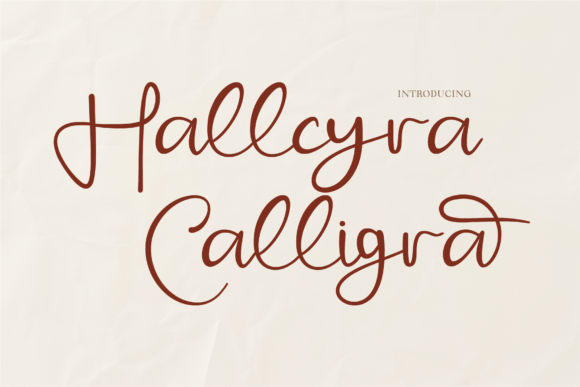
Unleashing the Art of Elegant Design: Hallcyra Calligra Font
Have you ever been in the midst of a creative project, struggling to find the perfect font to convey the essence of your vision? As you browse through endless options, one style catches your eye – a delicate, handwritten font that whispers elegance and sophistication. This is the moment when you discover the Hallcyra Calligra Font, a beauty that radiates timeless charm and artistic flair.
This exquisite font is designed to capture the essence of refined handwriting, making it perfect for a wide range of projects. Whether you’re crafting wedding invitations, personal stationery, or branding materials, the Hallcyra Calligra Font adds a touch of charm and individuality, elevating your creations with an air of grace and creativity. Its versatility allows it to seamlessly blend into both classic and contemporary designs, making it a valuable asset for designers seeking to add a personal touch to their work.
Hallcyra Calligra Font Key Features
- Font Family: Hallcyra Calligra is a calligraphy font, ideal for adding a touch of elegance and sophistication to your designs.
- Unique Characteristics: Hallcyra Calligra features intricate, hand-drawn lettering with subtle flourishes, making it perfect for creating beautiful, high-end designs.
Review of Hallcyra Calligra Font
I recently had the chance to work with the Hallcyra Calligra font, and I must say it’s a unique and intriguing choice. ✨ The font’s elegant and flowing script style is perfect for adding a touch of sophistication to any design project. The subtle flourishes and connecting strokes give it a sense of movement and energy, making it perfect for titles, headings, and other prominent text elements.
One of the things I appreciate about Hallcyra Calligra is its versatility. It works well in both digital and print applications, and can be easily paired with a wide range of font combinations. ✨ The font is also highly customizable, with a wide range of OpenType features and stylistic sets available. This makes it easy to tailor the font to your specific design needs.
- ⚠️ The font may be too ornate for some designs, and can be overwhelming if used in large quantities.
- ⚠️ The font’s connections and flourishes can sometimes be difficult to read at small font sizes.
- ⚠️ The font may not be suitable for use in very technical or instructional contexts, where clarity and readability are paramount.
Overall, I’m really impressed with the Hallcyra Calligra font. While it may have some limitations, its unique style and versatility make it a valuable addition to any designer’s toolkit. Whether you’re looking to add a touch of elegance to a wedding invitation or create a bold and eye-catching title for a marketing campaign, Hallcyra Calligra is definitely worth considering.
Tips for Getting the Most Out of Hallcyra Calligra Font
Use Hallcyra Calligra Font for titles, headings, and other display text to add a touch of elegance and sophistication to your designs.
Pair Hallcyra Calligra Font with other fonts to create a visually appealing and harmonious design.
Hallcyra Calligra Font is ideal for:
- Brand logos and identity design